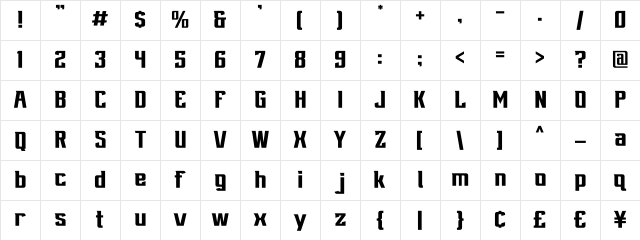
Vicious Bold
Design Context for Vicious
Vicious is a composed and adaptable typeface that performs quietly and consistently across a wide range of design contexts. Its bold stroke weight gives it real presence on the page.